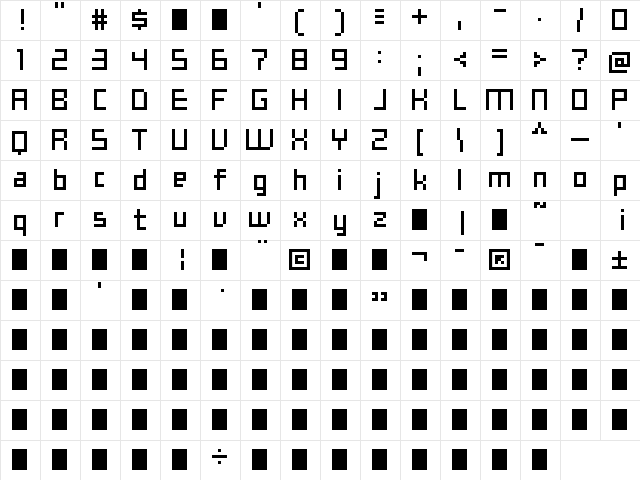
rudinpx Regular
Design Context for rudinpx Typeface
rudinpx offers clean, dependable letterforms without strong stylistic allegiance, making it a practical choice for designers who need flexibility.
Pro Tip: Pair rudinpx with a font of contrasting weight or personality to build a more expressive typographic hierarchy.